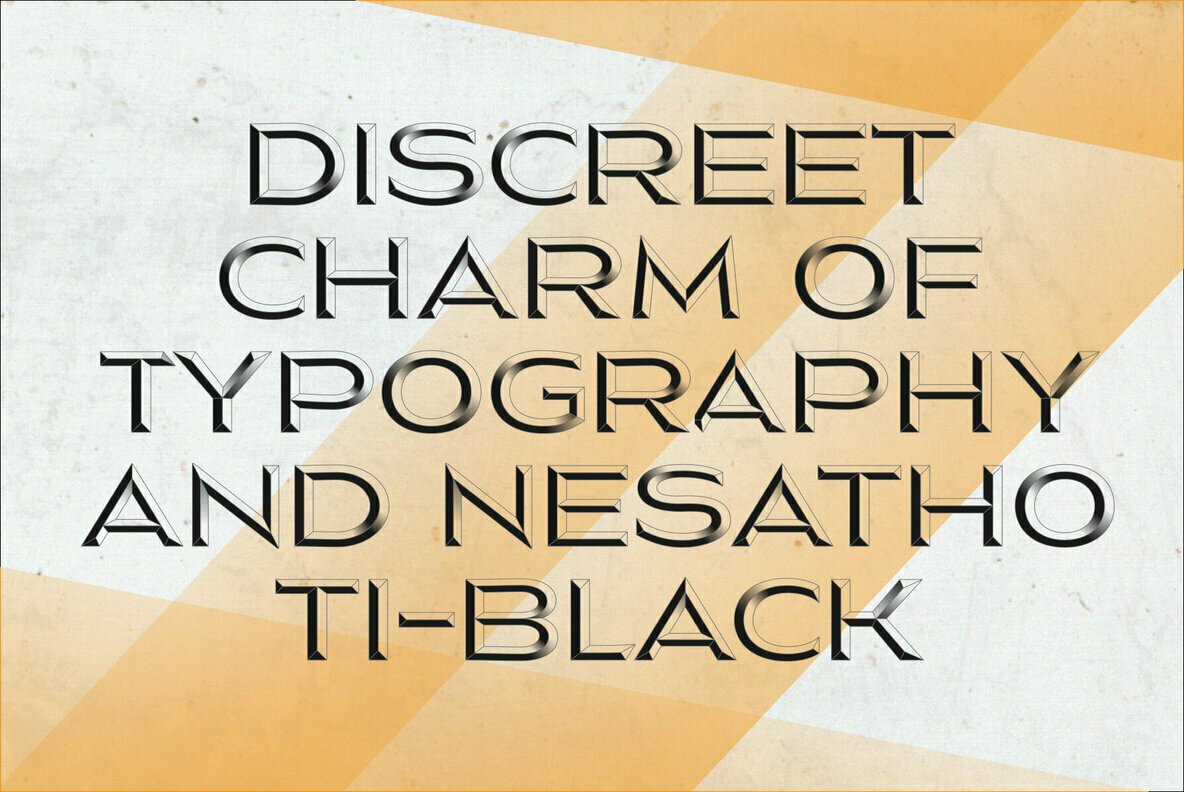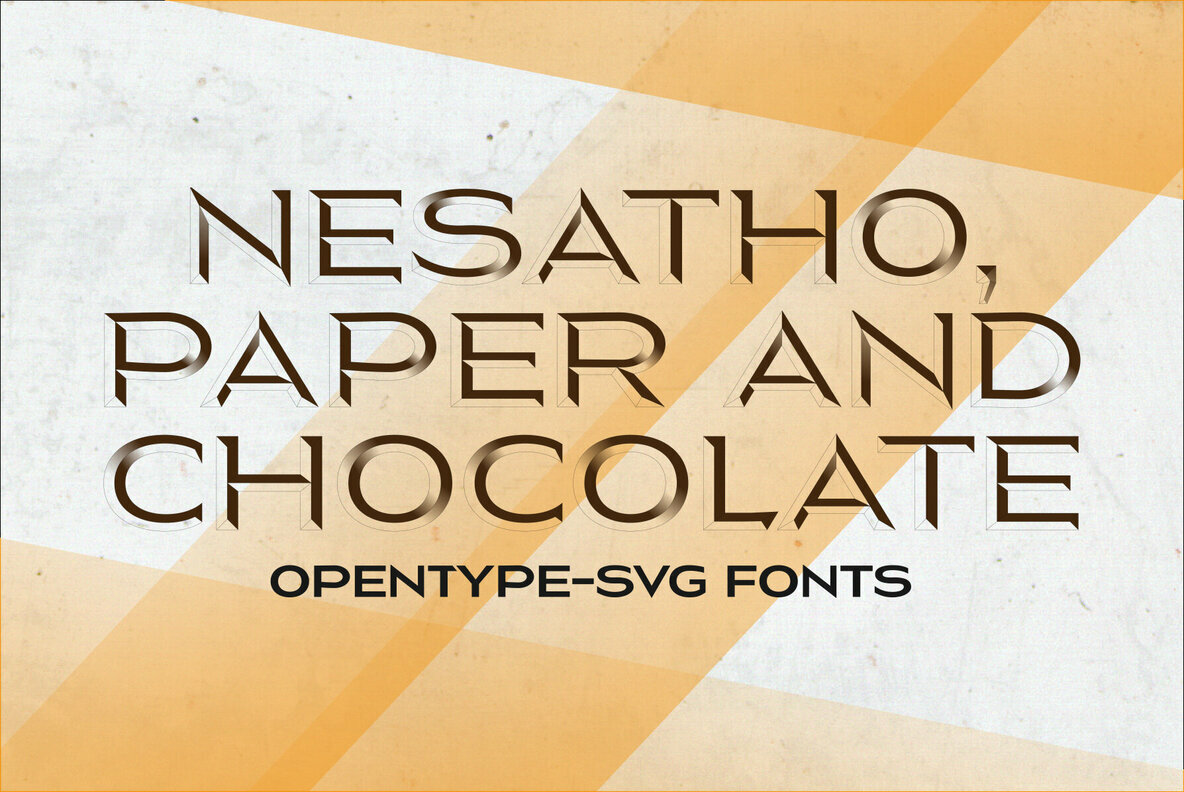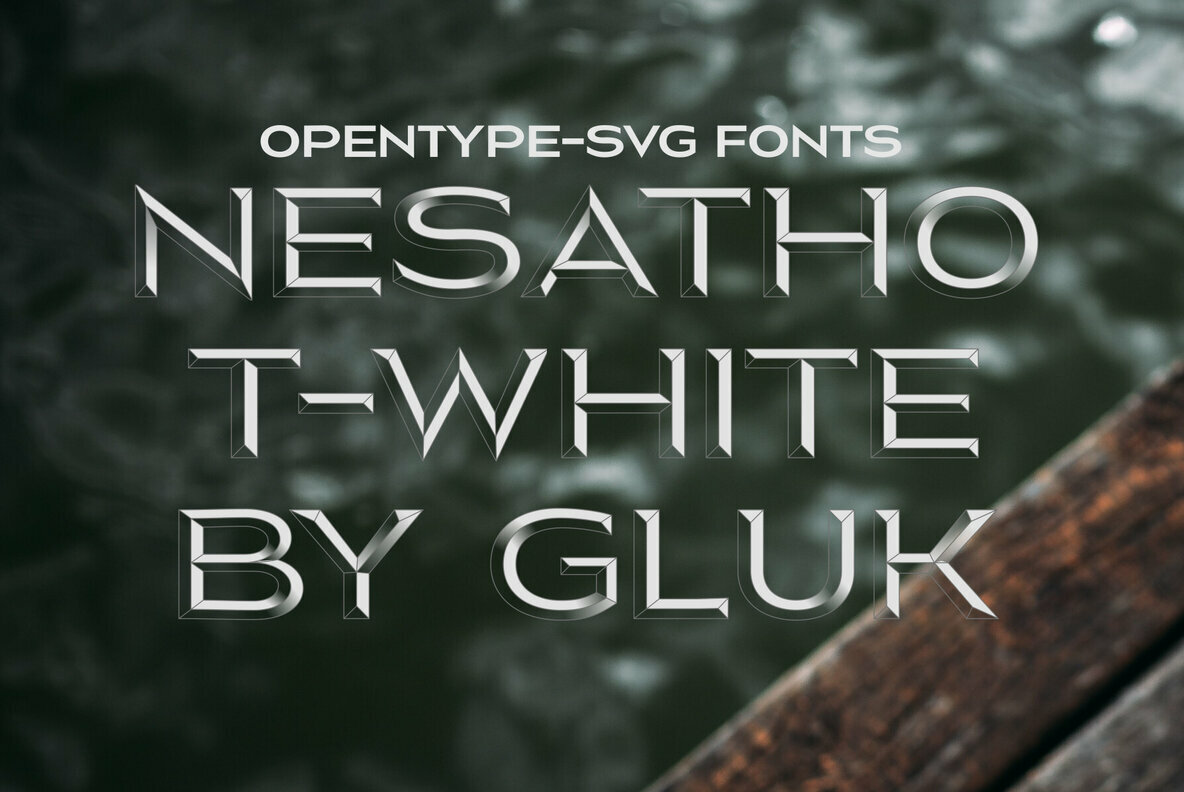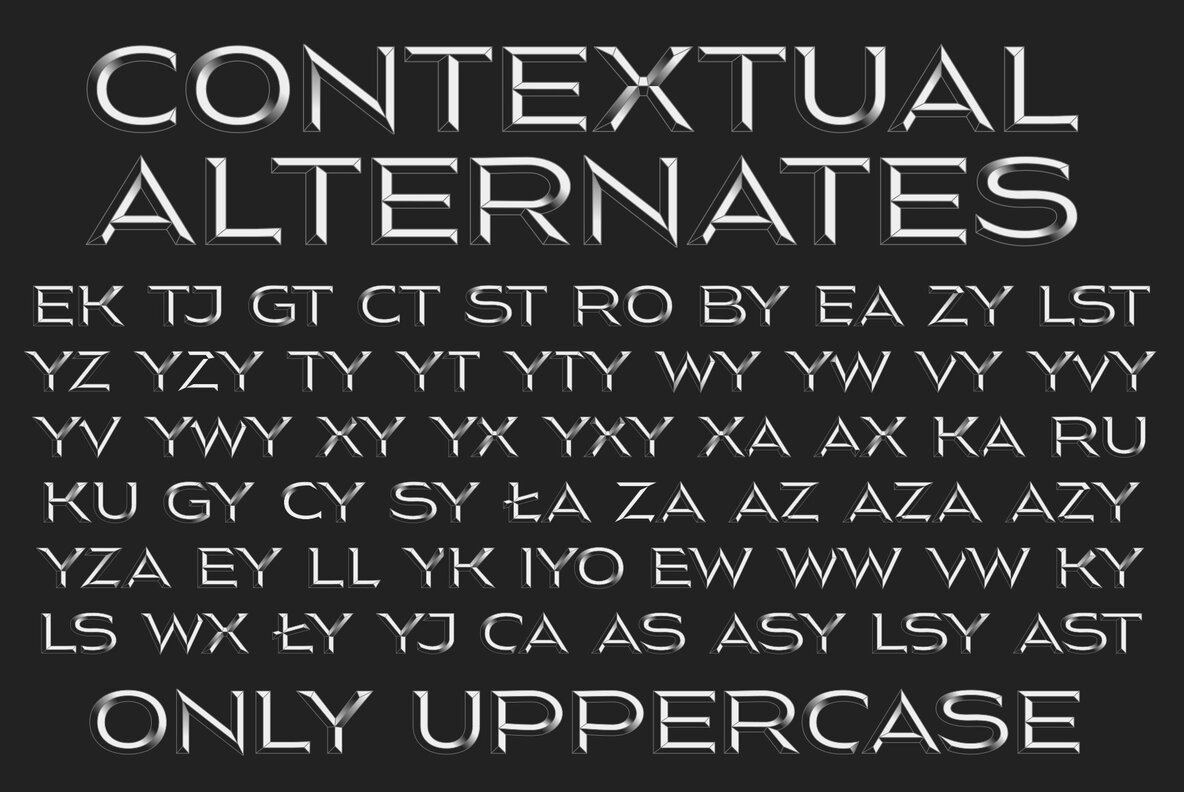
Nesatho-T Color Font
Embrace the creativity of the Nesatho-T color font family, designed by Grzegorz Luksza, featuring a spectrum of hues—from classic black and white to striking chocolate, orange, blue, and green. Each font is meticulously crafted with full vector glyphs, transparency, and gradients, offering a dynamic touch to your designs. Experiment with uppercase and lowercase combinations to unlock diverse typographic styles. Whether for modern branding or vibrant web design, Nesatho-T elevates every project with its rich palette and design flexibility.Nesatho-T: A Vibrant Color Font Collection
Versatile Typography Options